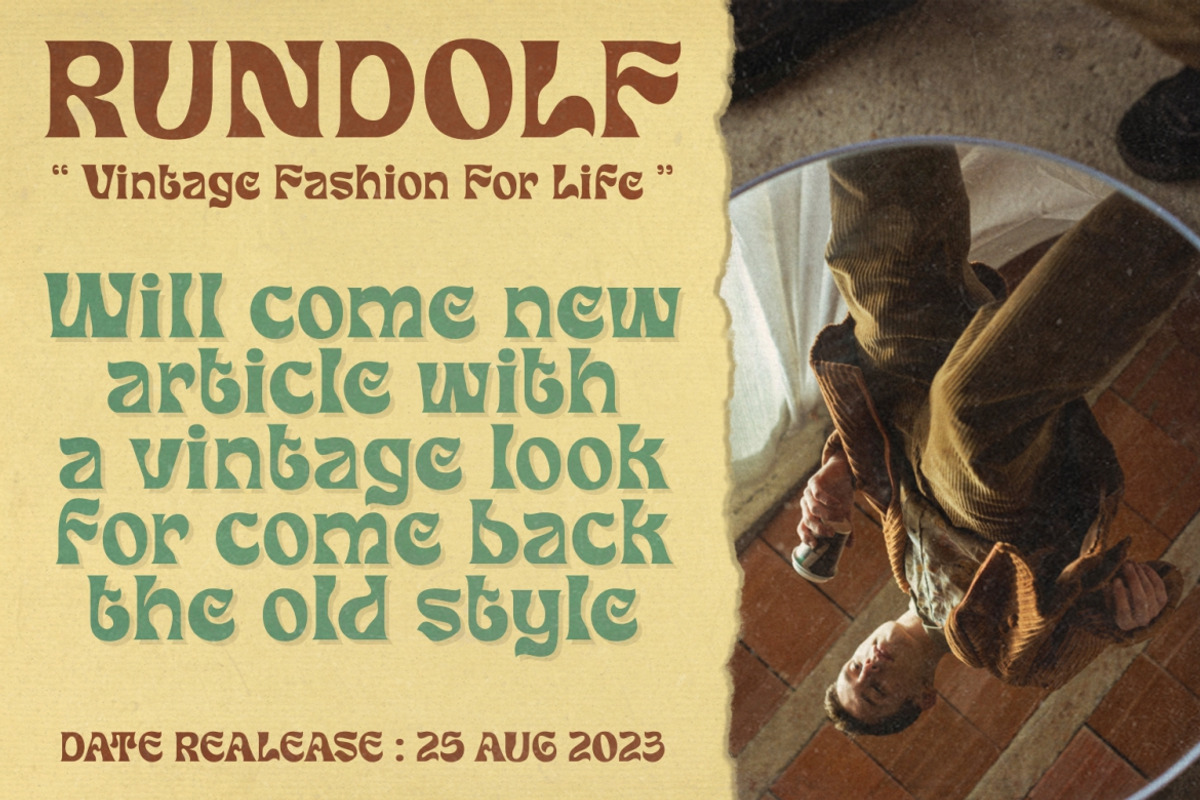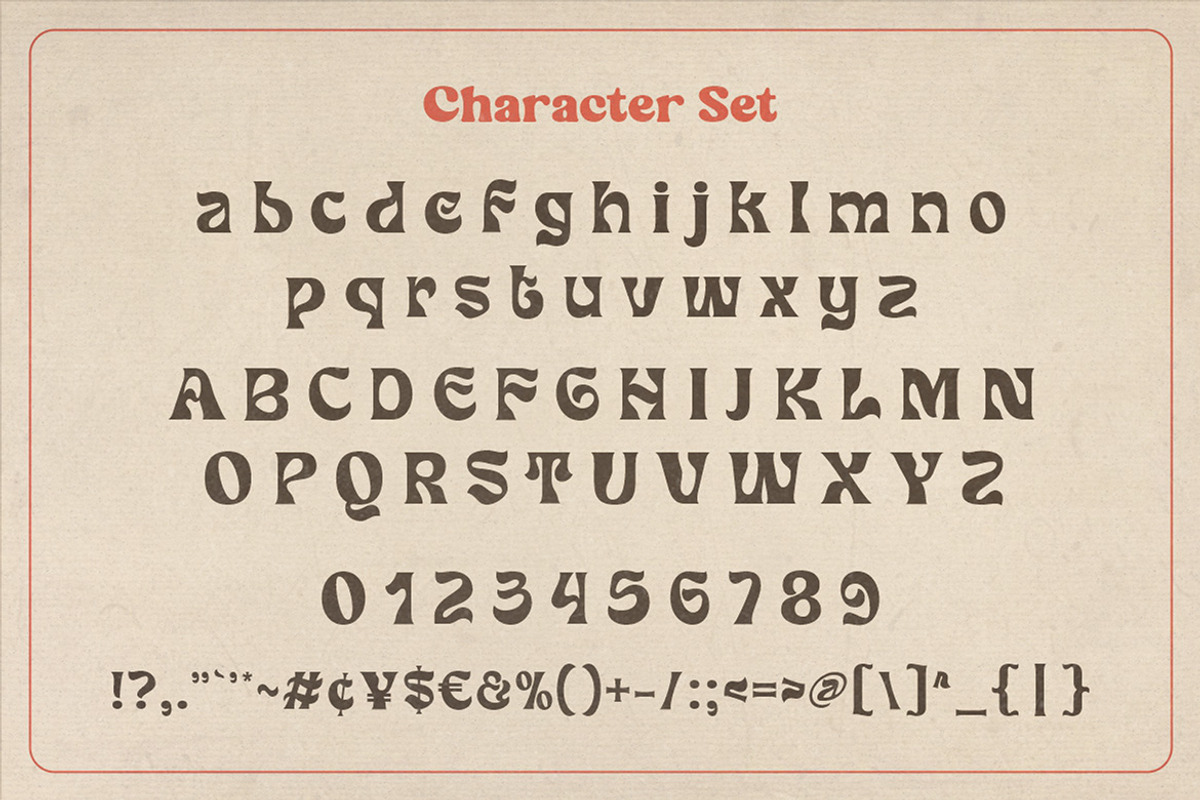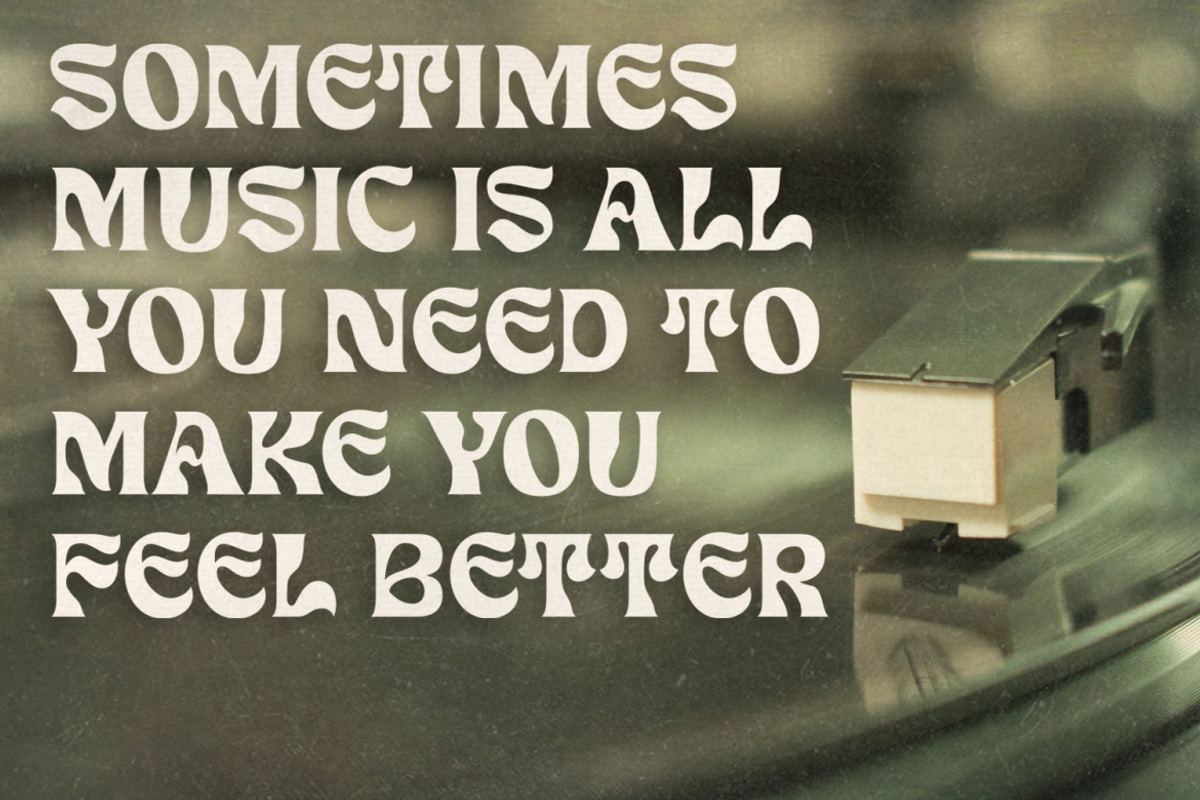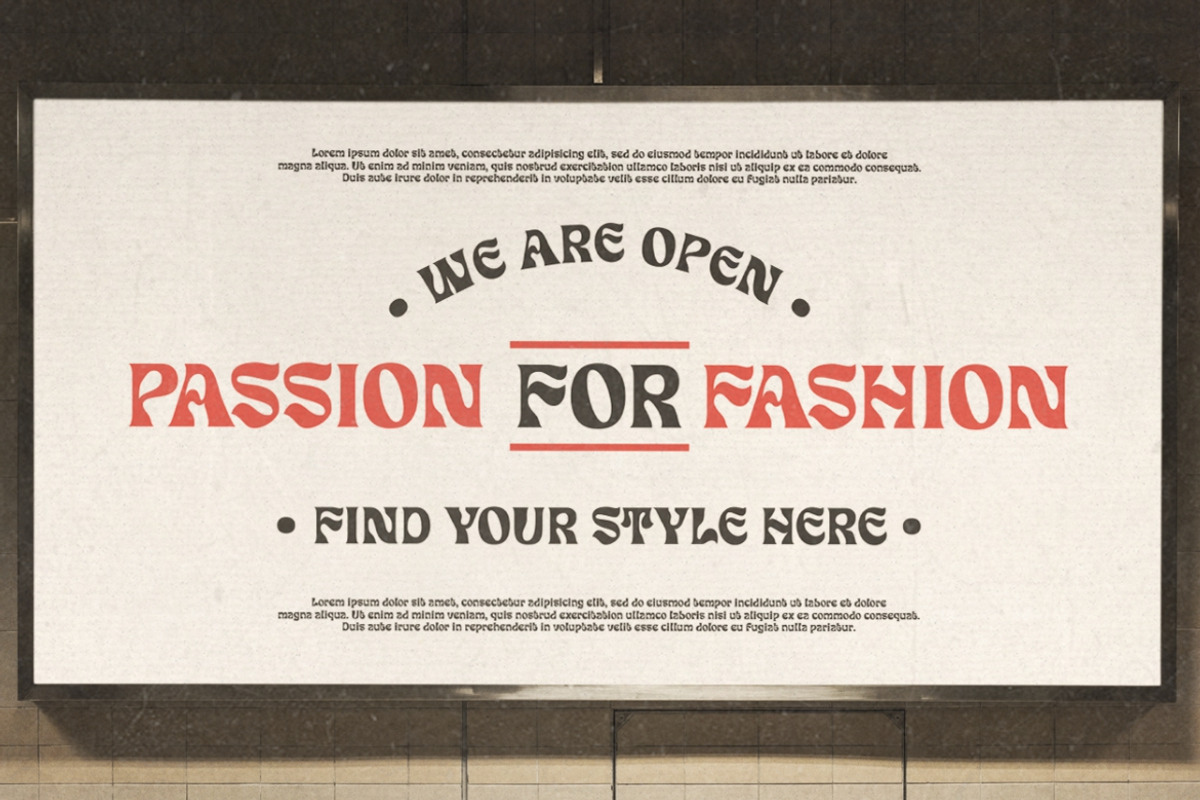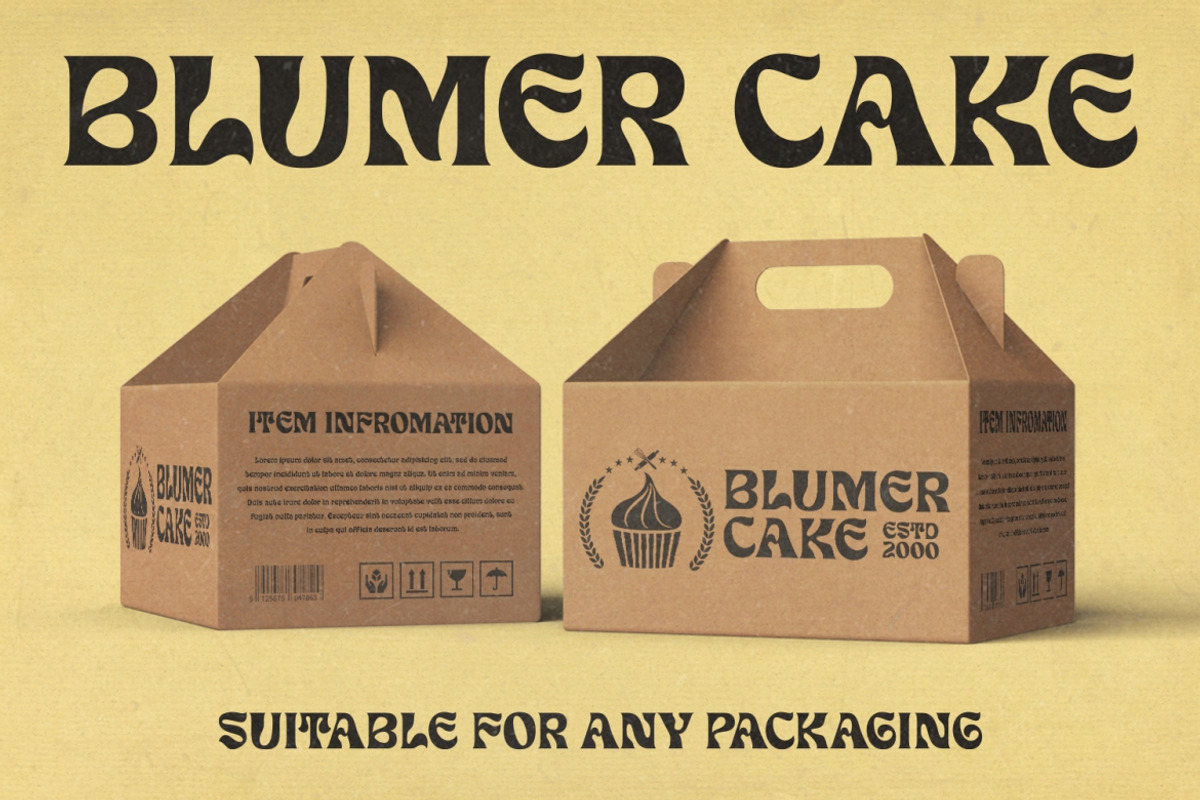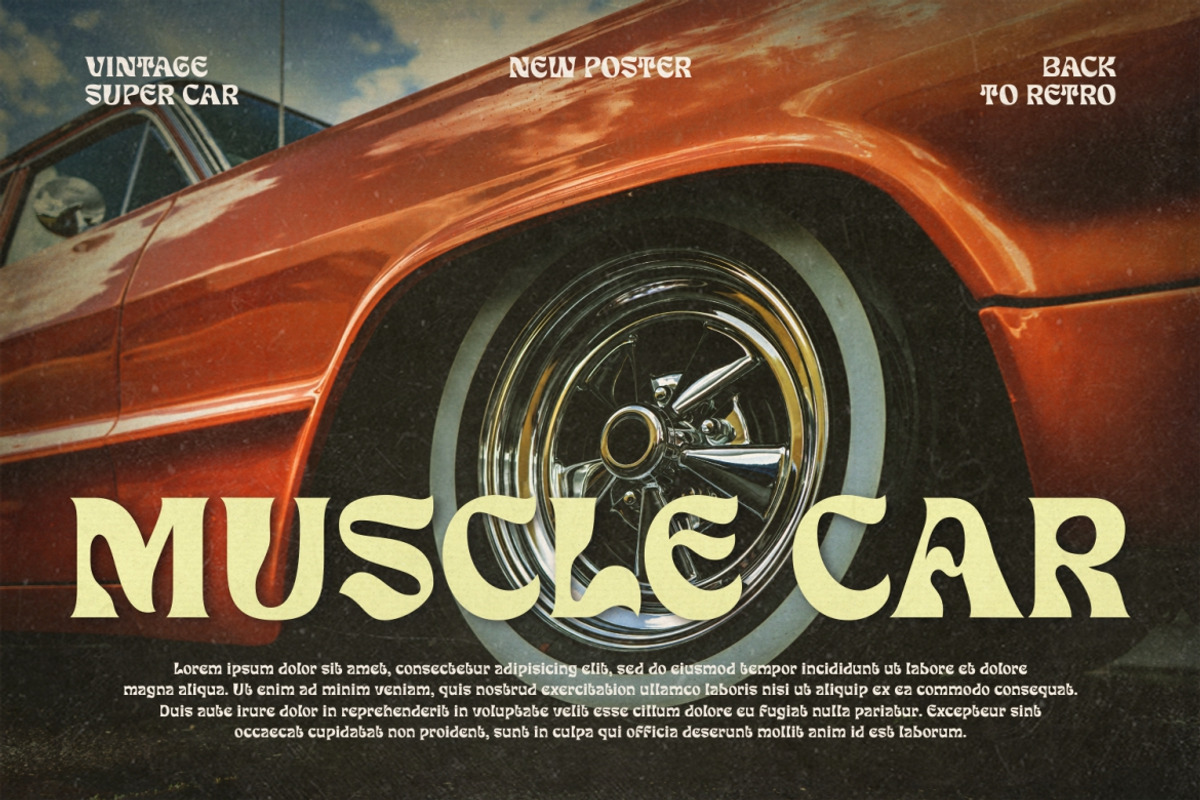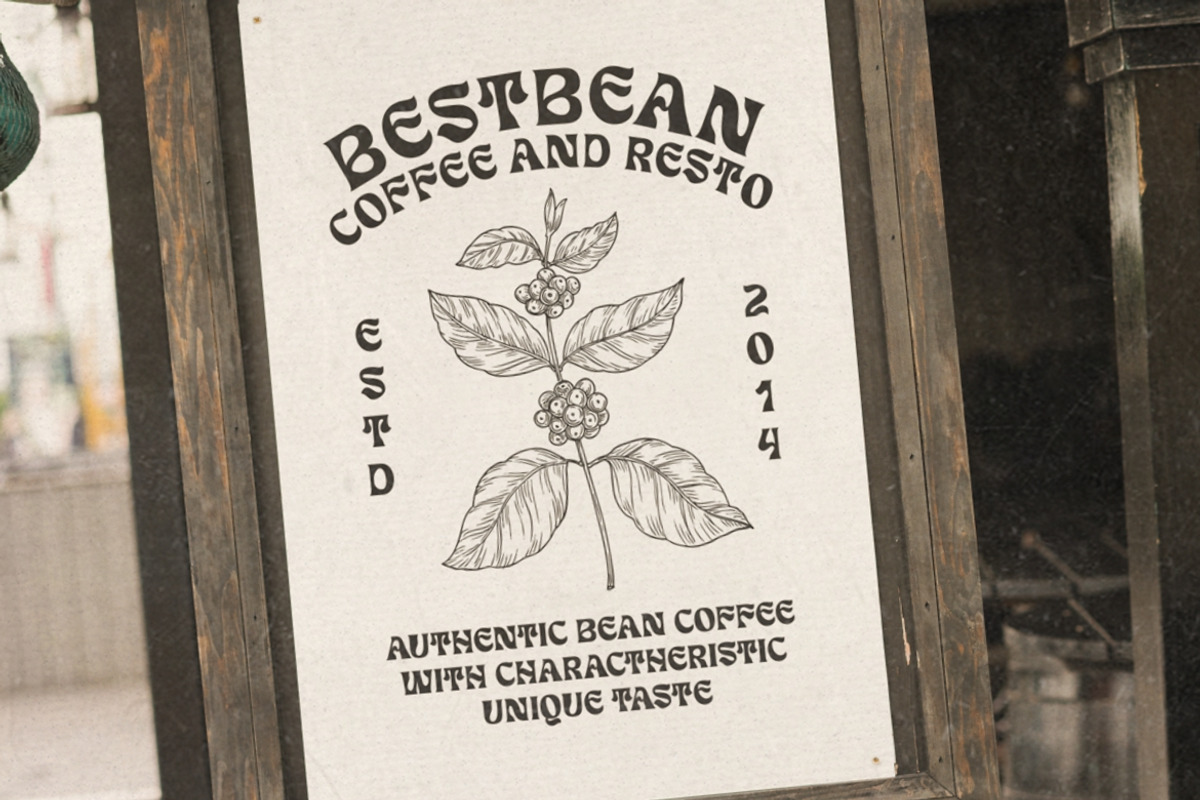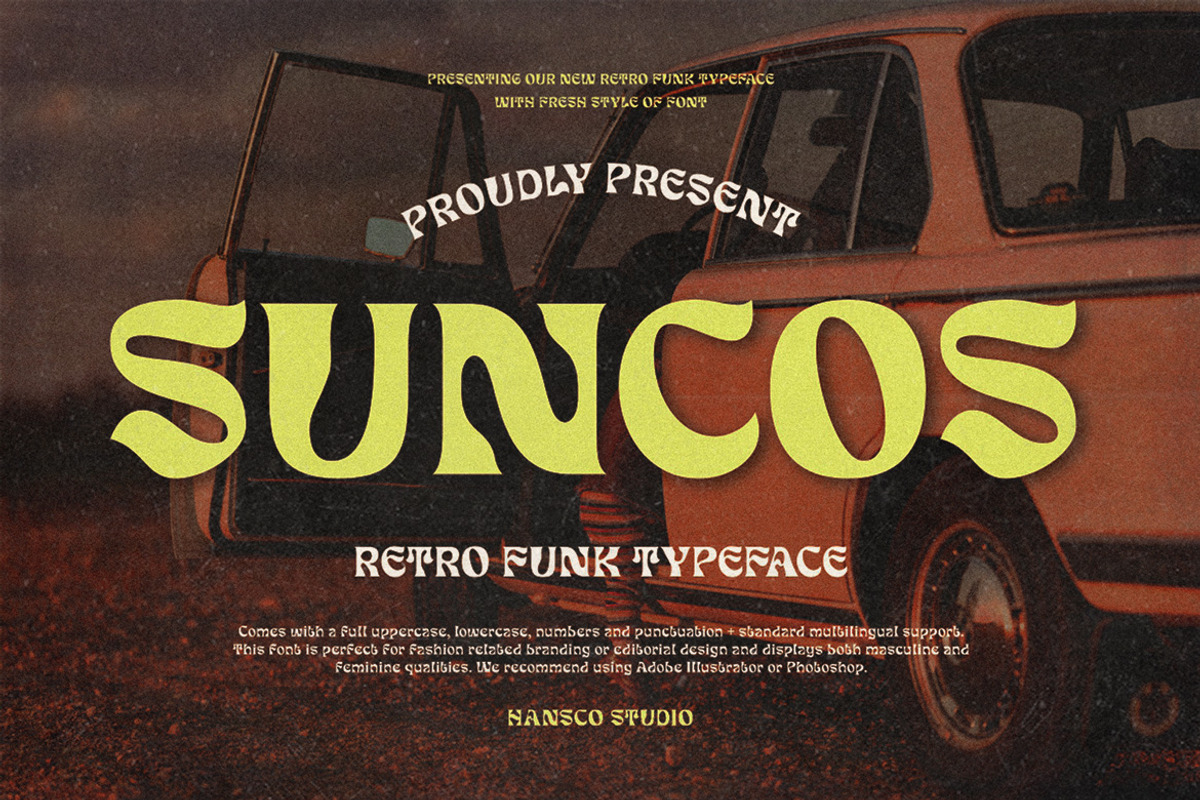
Suncos - Retro Funk Font!
Suncos is a retro funk fonts that feels casual and clean an incredible modern retro aesthetic. Use this display font to add that special retro funk vintage touch to any design idea you can think of!
Very suitable for Logotype, Stickers, Packaging design, Cricut Project, Headlines, Brand identity, T Shirt or Apparel industry, Posters, Magazines, Books, YouTube, Instagram, Websites, or any of your creative design projects.